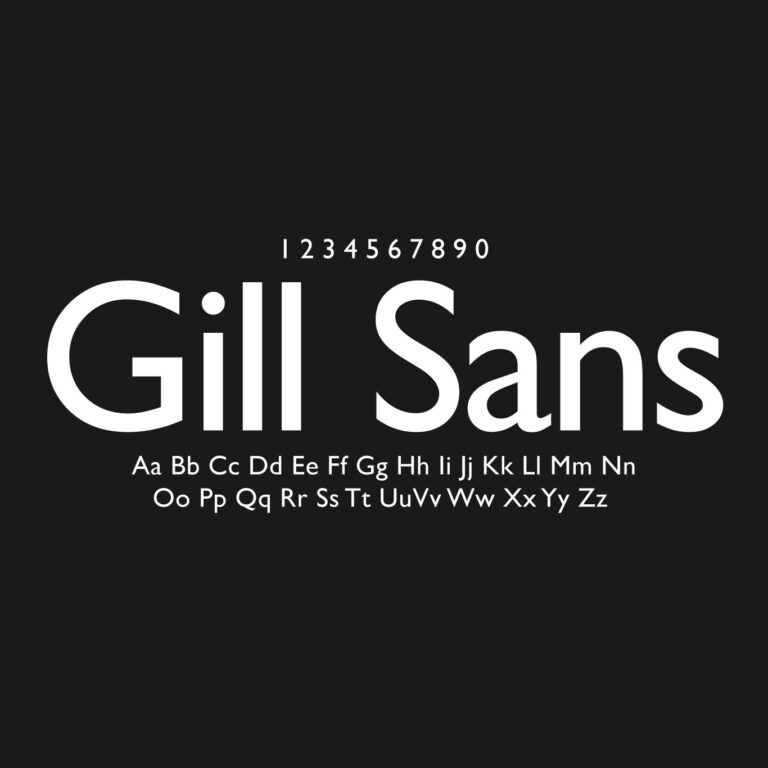
Gill Sans is a humanist sans-serif designed by Eric Gill for Monotype and first issued in 1928. Its familiar appearance comes from a mix of classical letter proportions and geometric simplicity, with distinctive details such as the flared capital R and double-storey “eyeglass” g.
Font Name: Gill Sans
Designer: Eric Gill
Foundry: Monotype
Classification: Humanist Sans Serif
Original Release: 1928
Digital Family: Gill Sans MT Pro
From Johnston to Gill Sans
Gill Sans has a direct connection to Edward Johnston, Eric Gill’s former teacher and the designer of the lettering introduced for the London Underground. In 1926, Monotype typographic adviser Stanley Morison asked Gill to develop a new sans-serif design. Gill drew partly on lettering he had already created for Douglas Cleverdon’s bookshop in Bristol, and Monotype began issuing the resulting typeface in 1928.
The influence of Johnston is still visible, but Gill Sans moved toward more classical proportions and developed a personality of its own. Unlike strictly geometric sans-serifs of the same period, its letters retain noticeable variation and calligraphic influence. The lighter weights can work comfortably in text, while Bold and Heavy cuts have a much stronger display character.
What Makes Gill Sans Distinctive?
Gill Sans sits somewhere between geometric and humanist sans-serif design. Circular forms such as the “o” feel clean and controlled, while letters such as the “a”, “g” and “R” give the family a less mechanical character. The flared leg of the capital R and the unusual double-storey g are two of its most recognizable details.